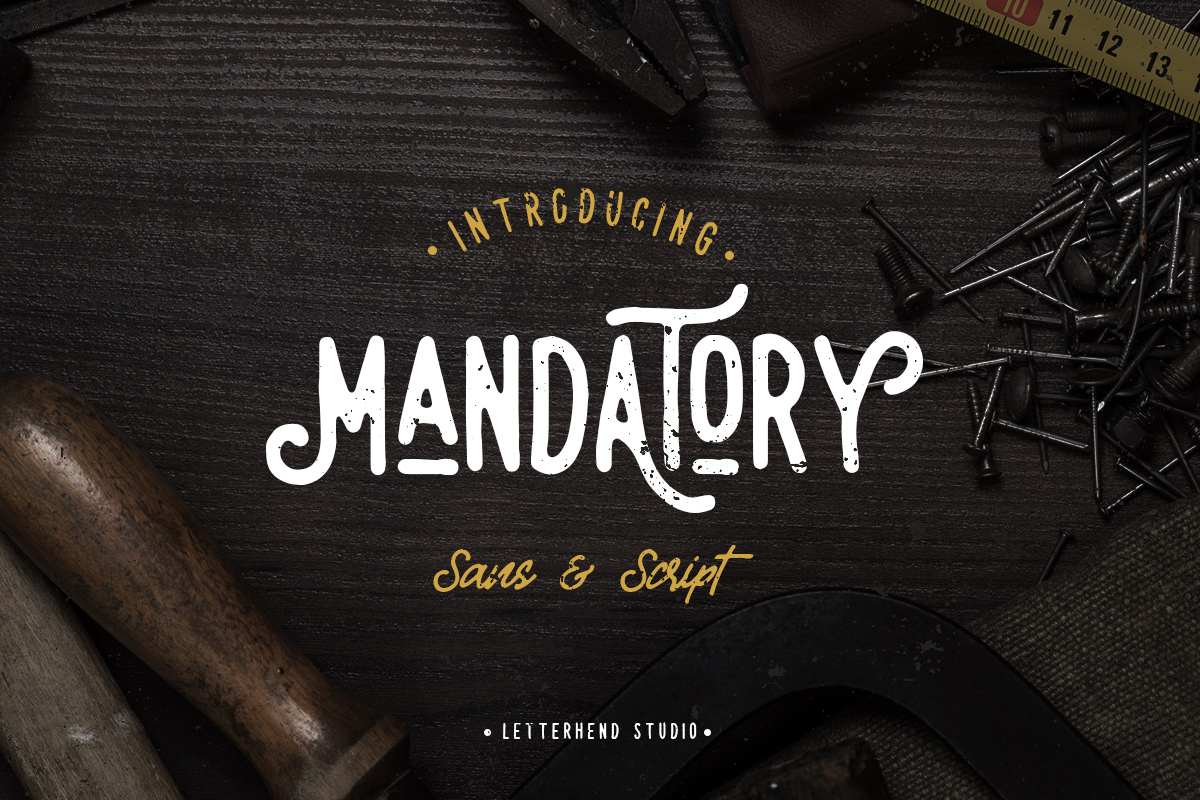
Mandatory - Vintage Font Duo
This nostalgic and authentic typeface duo is perfect for vintage barbershop signage, retro diner branding, classic motorcycle club logos, old-fashioned brewery labels, antique store marketing, heritage brand packaging, vintage poster designs, historical museum displays, and retro-themed restaurant menus that require an authentic vintage aesthetic.
Mandatory - Vintage Font Duo brings excitement to design projects with its perfectly paired combination of bold display and elegant script letterforms that capture the essence of mid-20th century American typography. The font duo features distressed textures and weathered characteristics that authentically recreate the look of aged signage and vintage print materials. Its nostalgic charm and historical accuracy make it an exceptional choice for brands that want to communicate tradition, craftsmanship, and timeless appeal in their visual storytelling.
The Mandatory - Vintage Font Duo family includes complementary vintage styles: Bold Display, Script, Condensed, Outline, Textured, Weathered, and Decorative versions. Each style within the duo maintains perfect visual harmony while providing designers with complete flexibility for creating cohesive retro branding systems. The family also features period-appropriate ornaments, vintage badges, classic banners, and authentic decorative elements that enhance the overall nostalgic experience.
The font duo's vintage craftsmanship includes carefully researched historical letterforms, authentic aging effects, and superior reproduction quality that honors traditional printing methods. Whether you're designing heritage brand campaigns, retro product packaging, or nostalgic entertainment venues, this font duo delivers the genuine vintage aesthetic that resonates with audiences seeking authentic connections to the past.
For creative professionals specializing in retro and heritage markets, this font duo represents an essential tool for creating memorable vintage experiences. The thoughtful pairing of complementary styles ensures versatile design possibilities while maintaining historical authenticity. Download this exceptional typeface duo today and discover how authentic vintage typography can transform your projects into timeless brand experiences that celebrate craftsmanship and tradition.